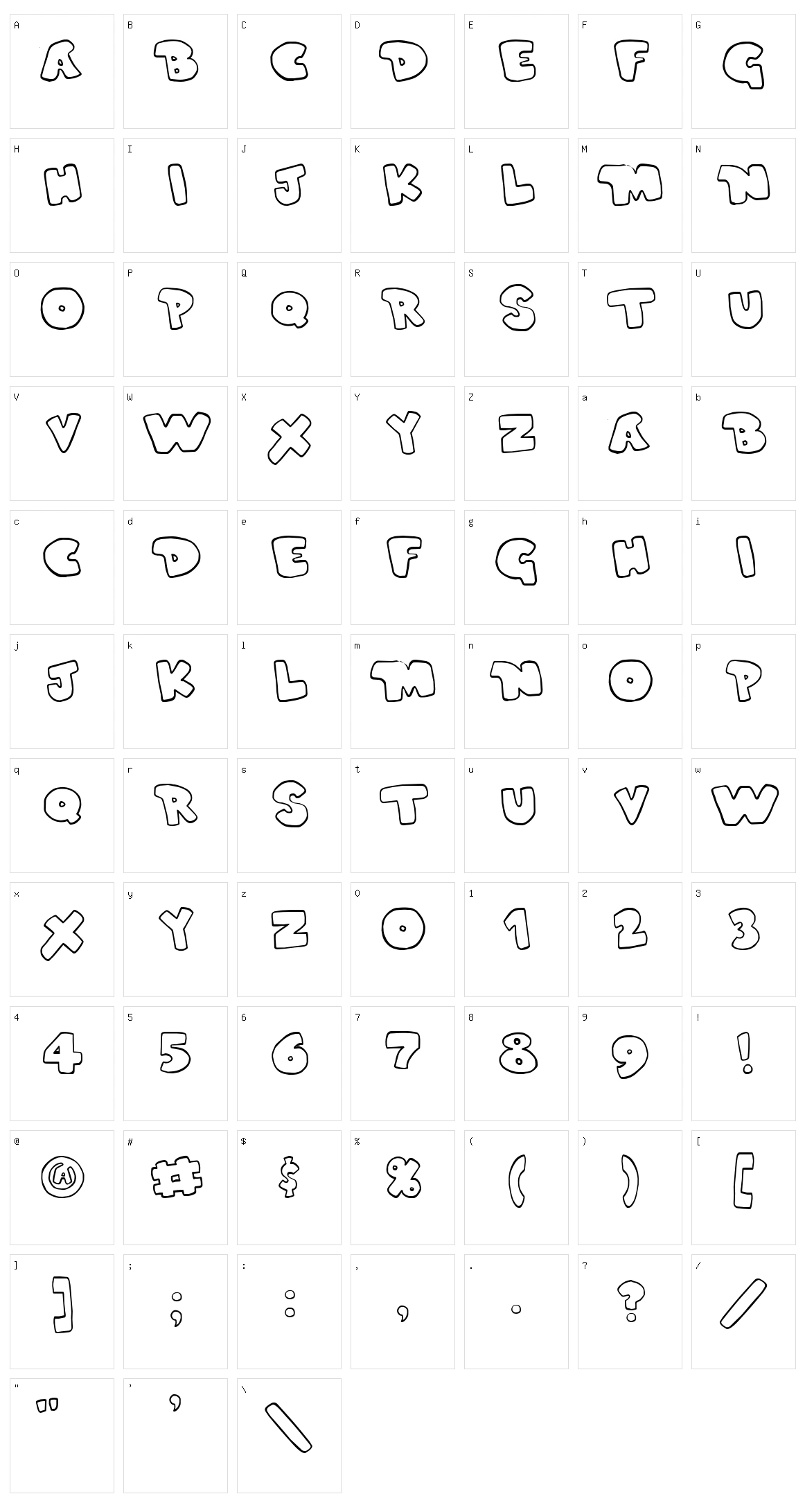
Duped (pronounced 'doopd')
Created April 2001
This font was inspired by the letters D and A which were tagged on a
commerical building in the vicinity of the Grant & 1st Ave. intersection
in Tucson, Arizona USA.
The word 'duped' came into my head as soon as I saw it. I have no idea
what it means, but it seemed to fit.